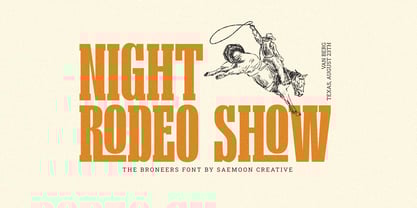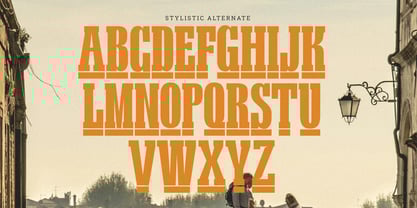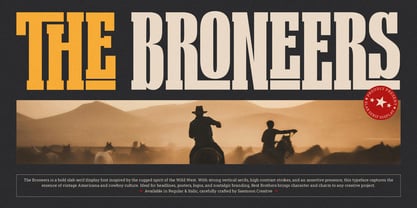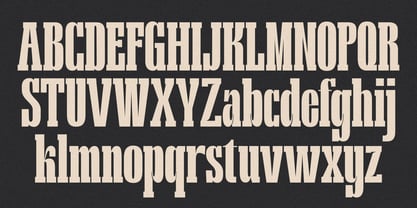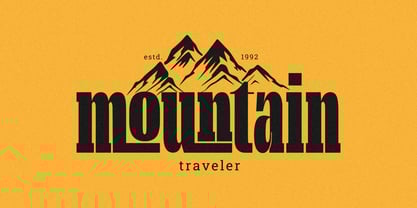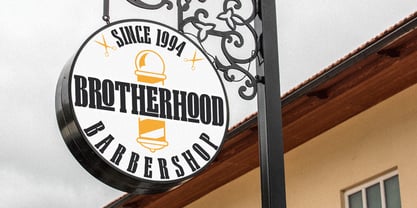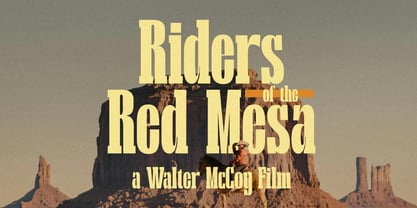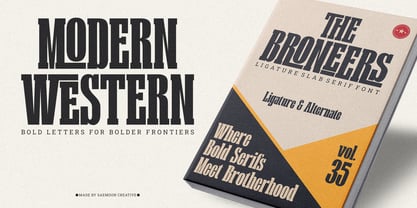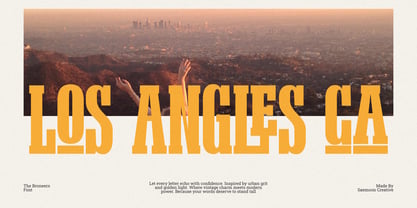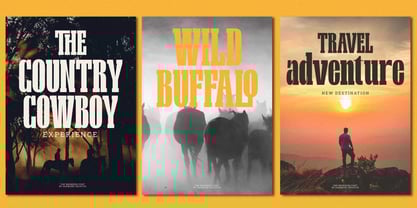
The Broneers
by Saemoon Creative
The The Broneers Font Family was designed by Sapto Susilo and published by Saemoon Creative. The Broneers contains 2 styles and family package options. More about this family
The Broneers is a bold slab serif display font inspired by the untamed spirit of the Wild West. Featuring strong vertical serifs, dramatic contrast, and bold letterforms, this typeface embodies the rugged charm of vintage Americana and cowboy culture. It’s a perfect choice for headlines, posters, logos, merchandise, signage, and nostalgic branding projects.
Whether you're crafting a western-themed design or adding character to a modern layout, The Broneers delivers a powerful, timeless presence. Available in Regular and Italic styles, each letter is carefully designed to provide clarity and strength while maintaining a distinct personality.
Designers: Sapto Susilo
Foundry: Saemoon Creative